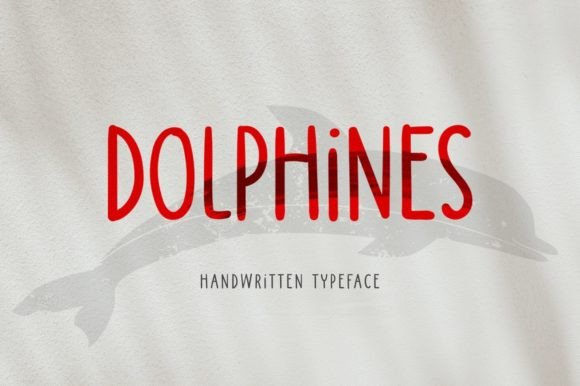
Unleash the vibrancy and warmth of handwritten charm with Dolphines Font, the exceptional sans serif font family crafted with meticulous care by salamahtype. Designed to embody the essence of handwritten expression, Dolphines captivates with its authentic, free-flowing style.
Immerse yourself in the world of Dolphines, where every letter dances with individuality, mirroring the art of human touch. Its graceful curves and spontaneous strokes exude a sense of playfulness and warmth, inviting your designs and messages to connect with audiences on a deeper level.
Dolphines is the epitome of versatility, seamlessly adapting to a myriad of visual creations. Whether you're designing logos, crafting eye-catching posters, or creating heartfelt quotes, Dolphines effortlessly adds a touch of personal charm.
Elevate your branding materials with the authenticity and allure of Dolphines. Its unique handwritten style breathes life into your brand, evoking a sense of genuine connection and relatability that engages customers.
Unleash your creativity with Dolphines and create merchandise that captivates hearts. Its playful nature lends itself perfectly to t-shirt designs, tote bags, and other products that tell a story, fostering a sense of connection and shared experience with your customers.
With Dolphines, you'll discover a font that transcends the ordinary, captivating your audience with its charm and versatility. Embrace the magic of handwritten expression and make a lasting impression with every design.